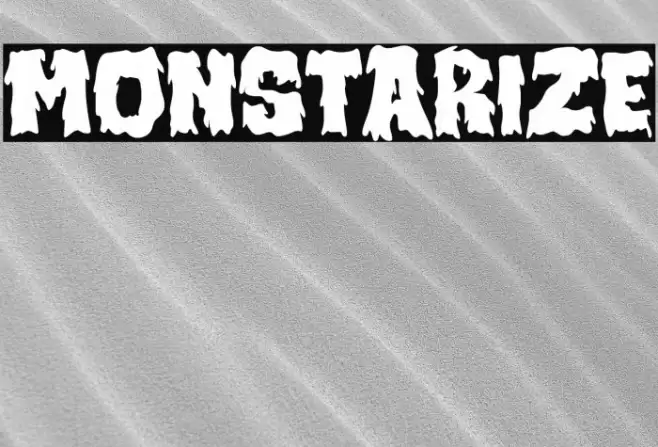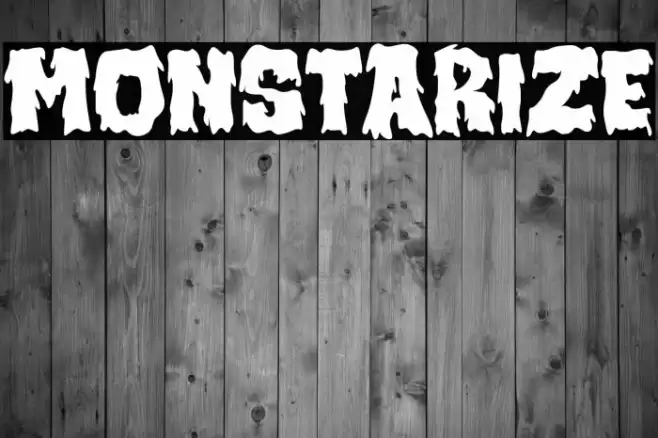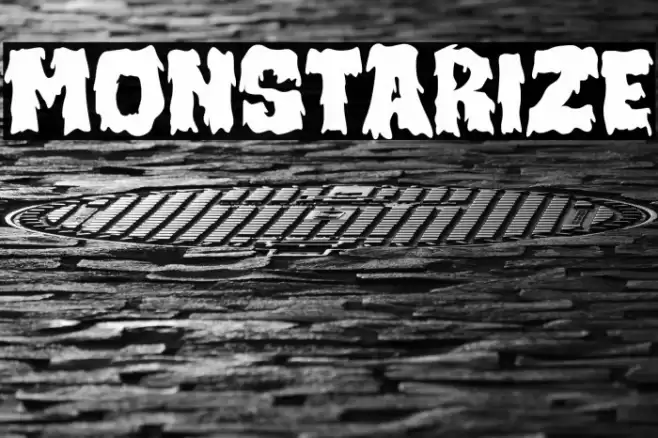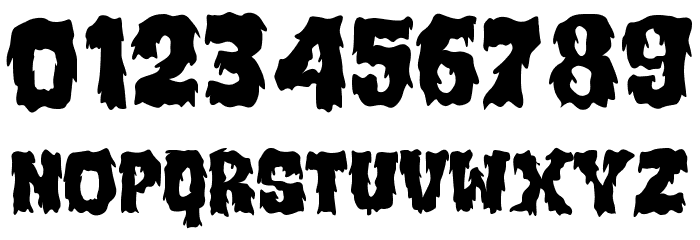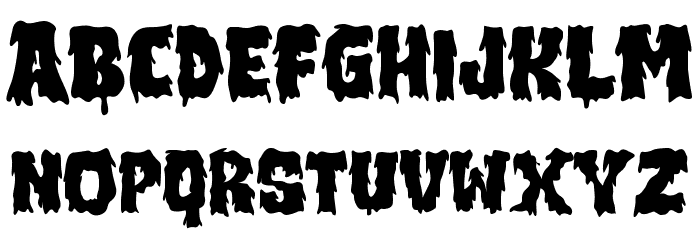
MONSTARIZE Font
MONSTARIZE Description
This font features a bold and dramatic style with jagged, irregular edges that give it a monstrous and eerie appearance. The characters are heavily stylized, resembling dripping or melting forms, which adds to its horror-themed aesthetic. The uppercase and lowercase letters maintain a consistent design, with each character exhibiting unique, exaggerated features that enhance the overall spooky vibe. The numbers and special characters follow the same design principles, ensuring a cohesive look across all glyphs. This font is perfect for creating a chilling atmosphere in any design project.
A bold, horror-themed font with jagged, dripping characters from Uncategorized fonts.
- Proposed Projects: Ideal for Halloween posters, horror movie titles, haunted house flyers, and spooky-themed event invitations.